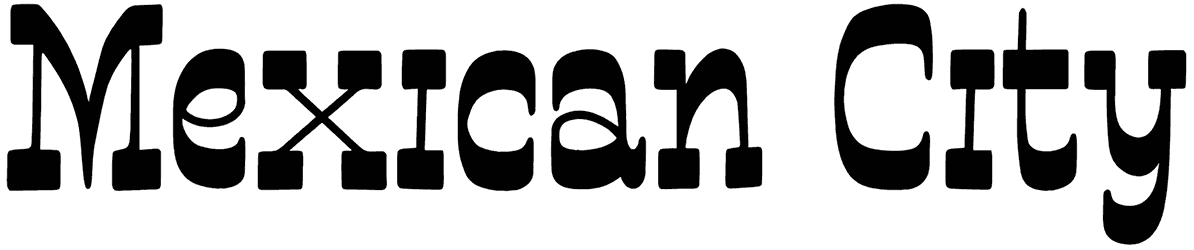
Mexican City Font
Mexican City is the perfect blend of contrast and elegance, which carries a sense of jauntiness, dynamism, professionalism, and courage. This Mexican font is created to turn any kind of graphic content, such as movie posters, video game banners, logos, web pages, and applications, into a masterpiece.
Mexican City is a slab serif font with western feel.
With its neat and beautiful arrangement of letters, this typeface will look outstanding in both formal and non-formal designs.
Perfect for headlines or logos, jacket, Porter finds its inspiration in the style of mid-19th century typefaces using generous slab serifs and a hard-working appearance.